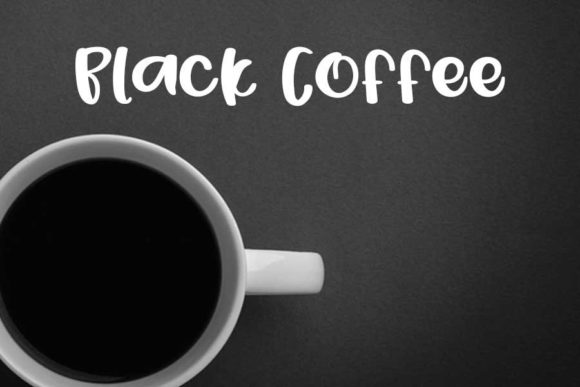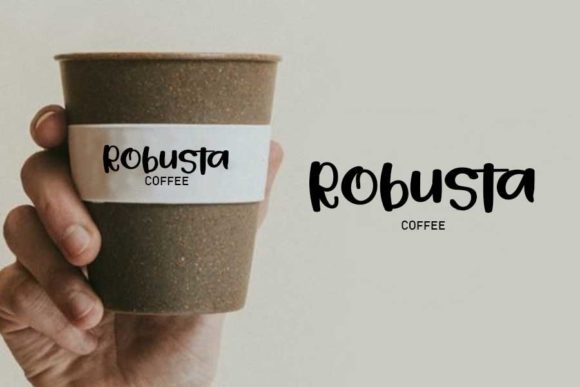
New York Font
db-ku.com - Script & Handwritten -- New York is a chic, casual and friendly handwritten font. Whether you’re looking for fonts for Instagram or calligraphy scripts for DIY projects, this font will turn any creative idea into a true piece of art!